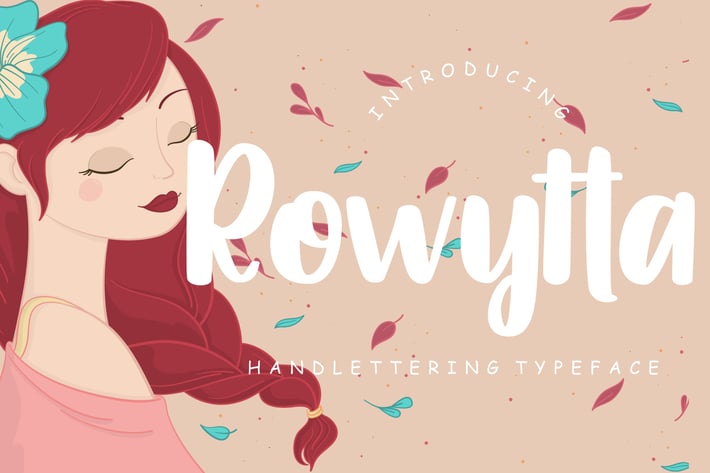
Rowytta Handlettering Typeface
Rowytta a natural handwritten font with stylish modern calligraphy make looks elegant and classy.
Rowytta is perfect for branding projects, logo, wedding designs, social media posts, advertisements, product packaging, product designs, label, photography, watermark, invitation, stationery and any projects that need handwriting taste.
Ton of glyphs
Ligatur & Alternate